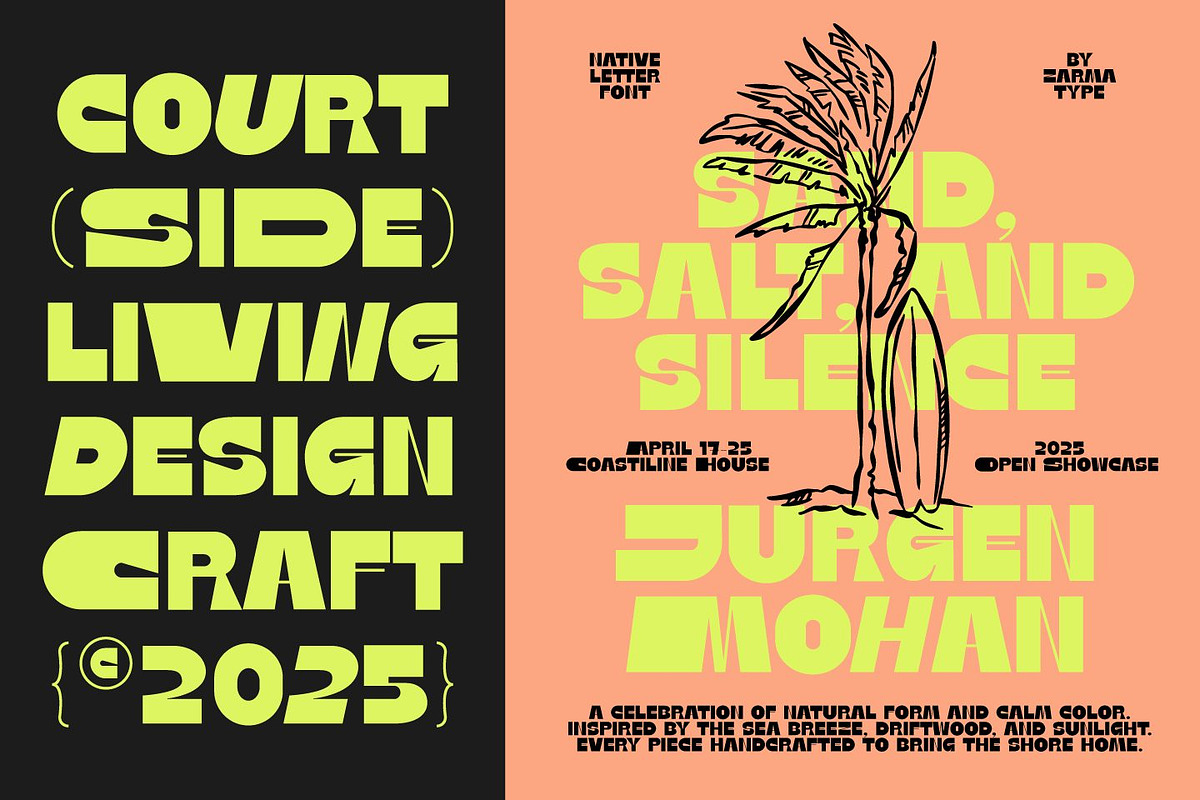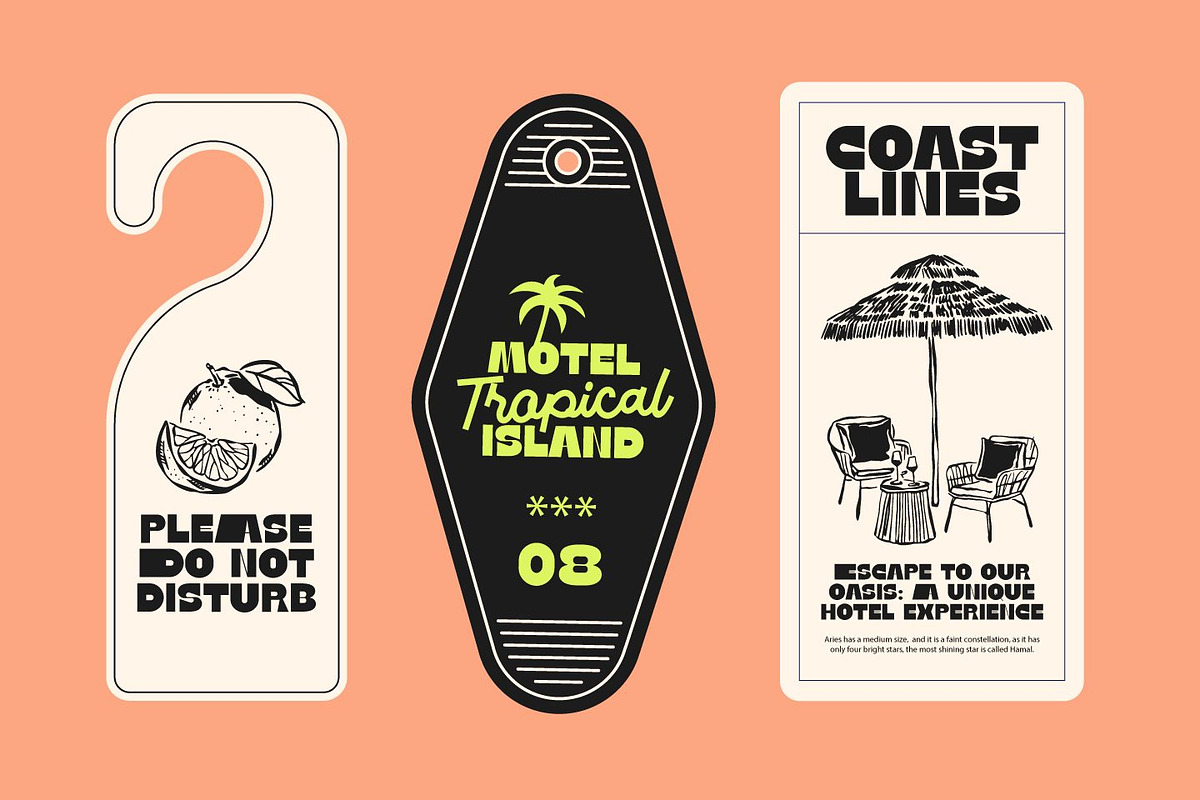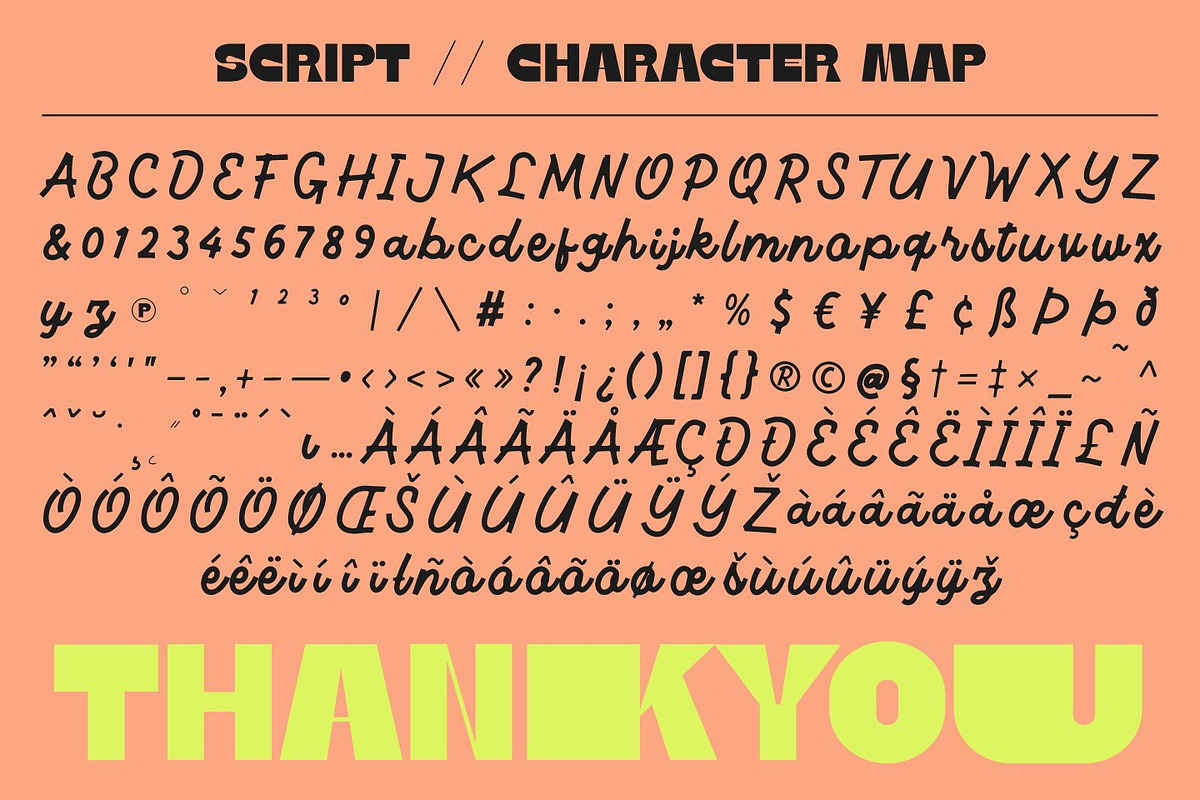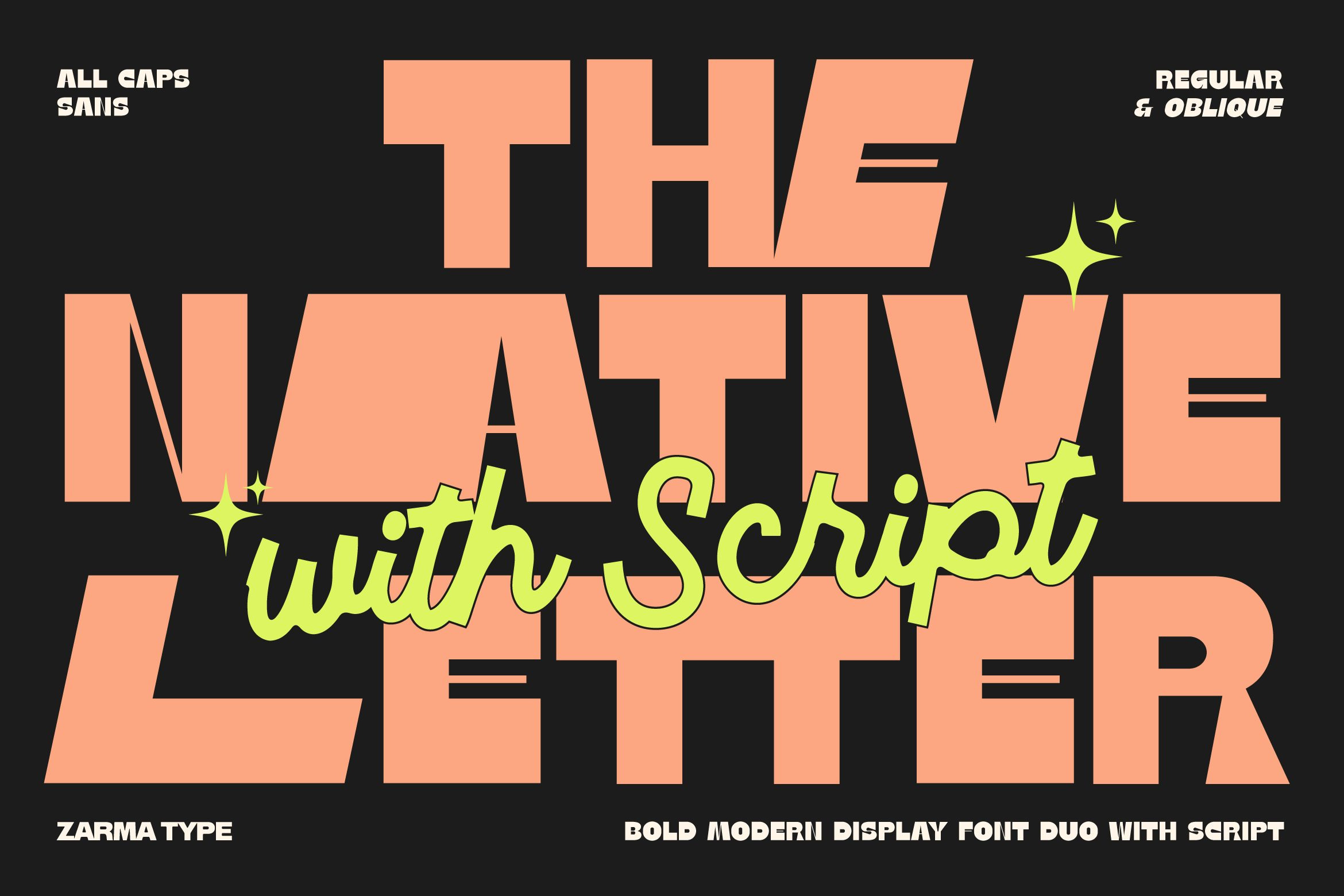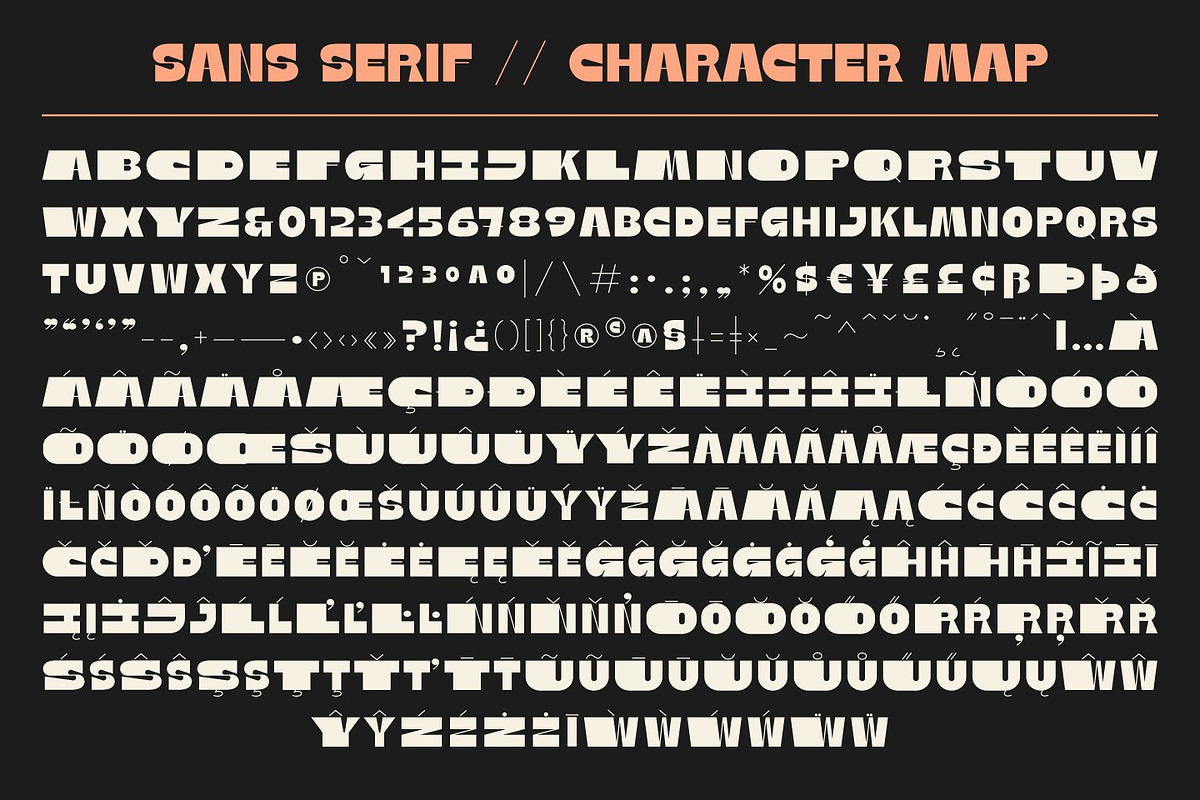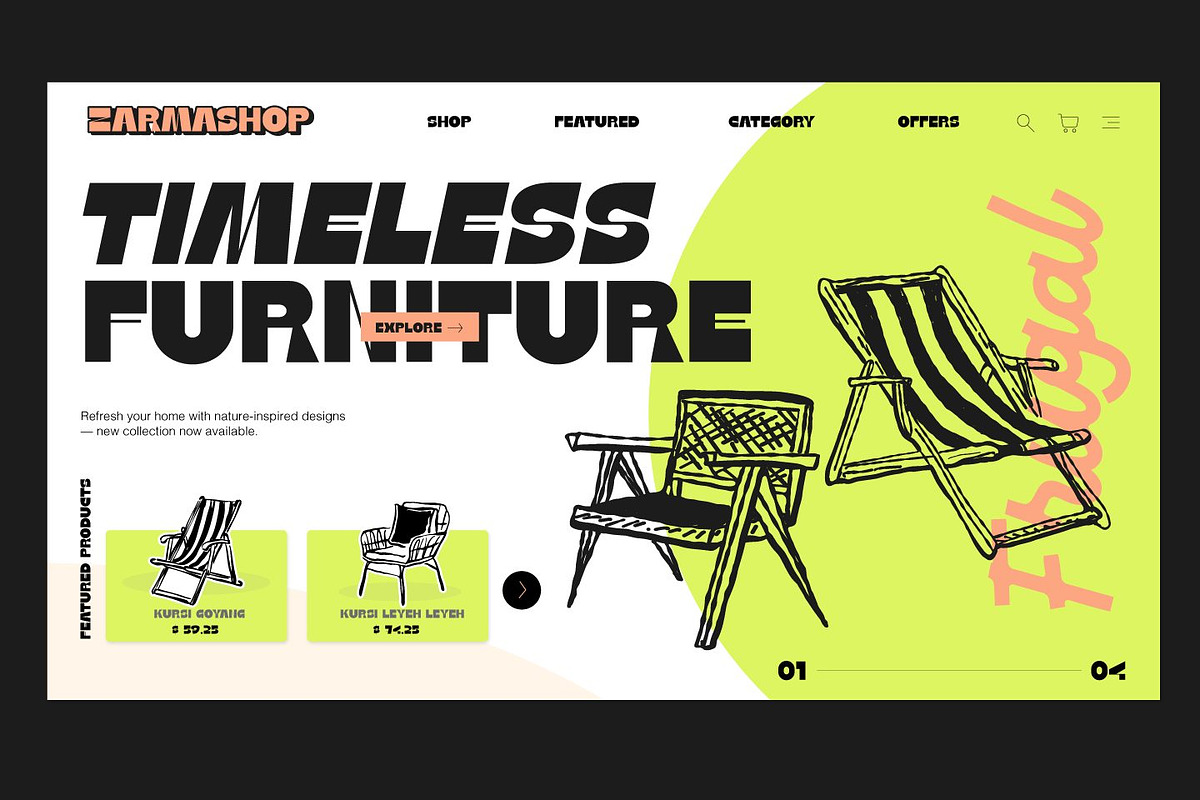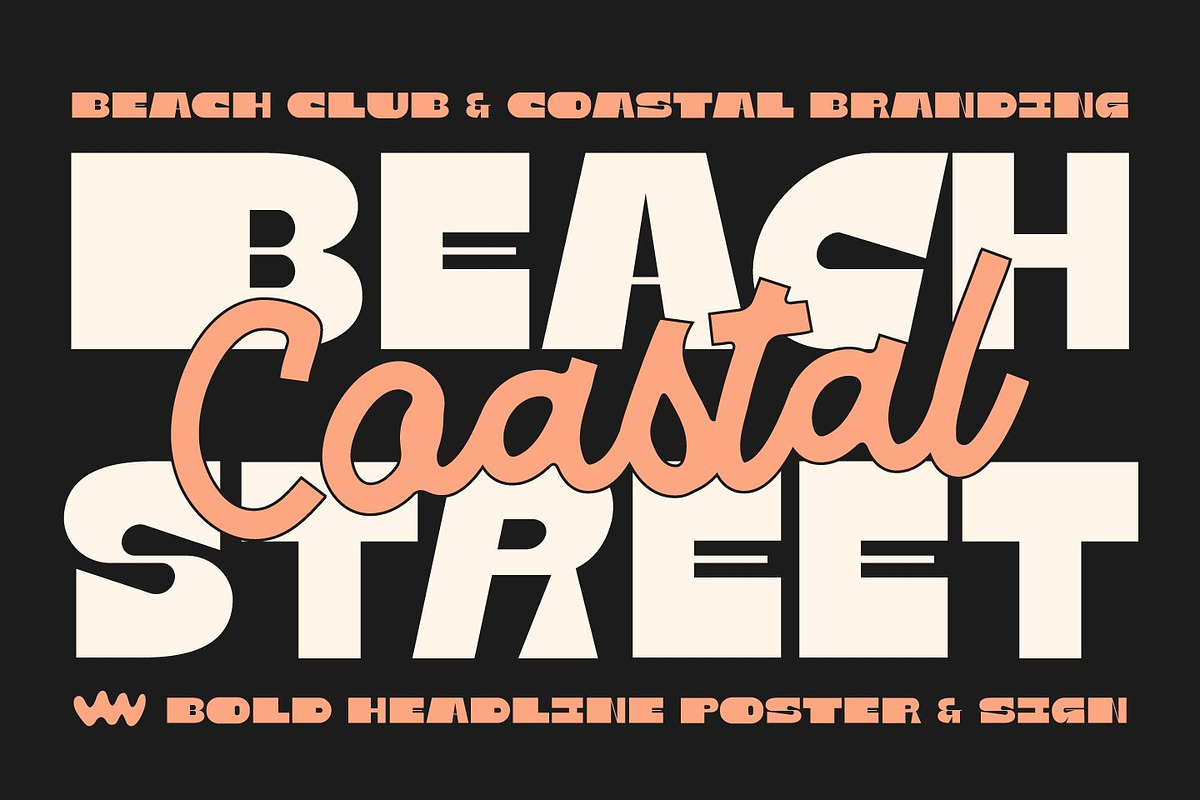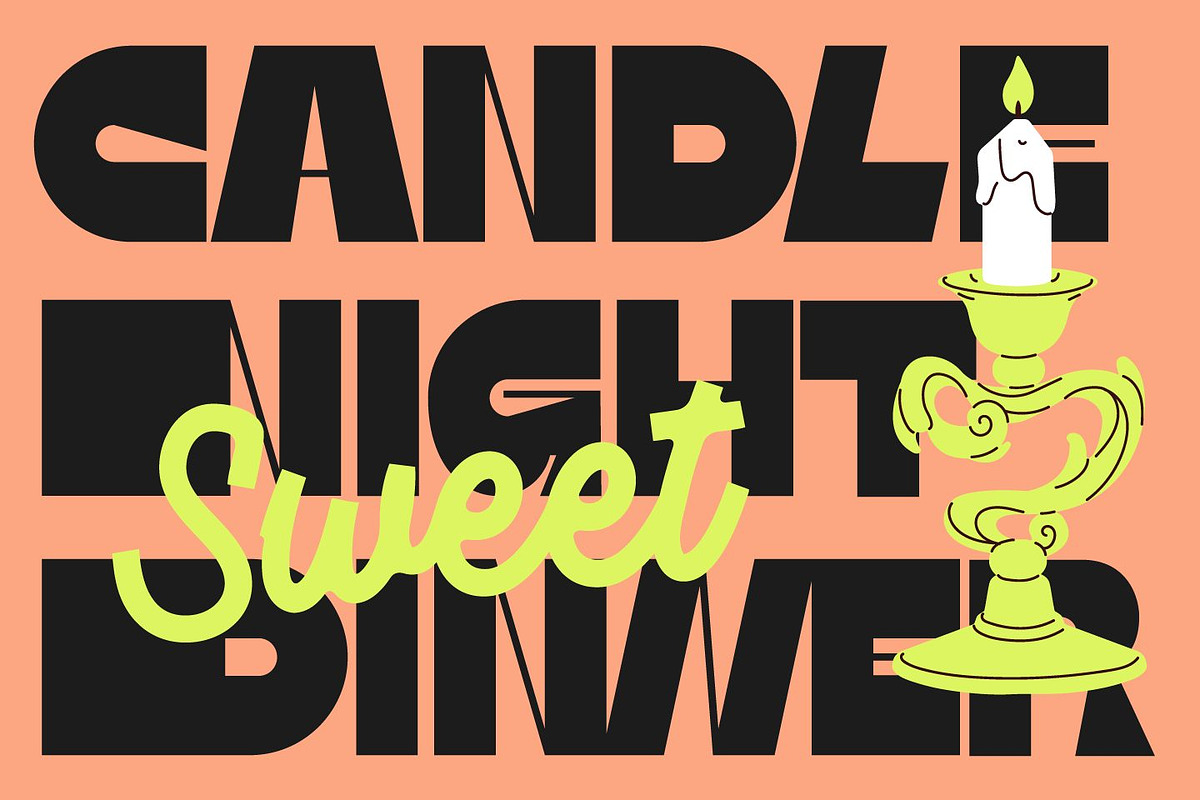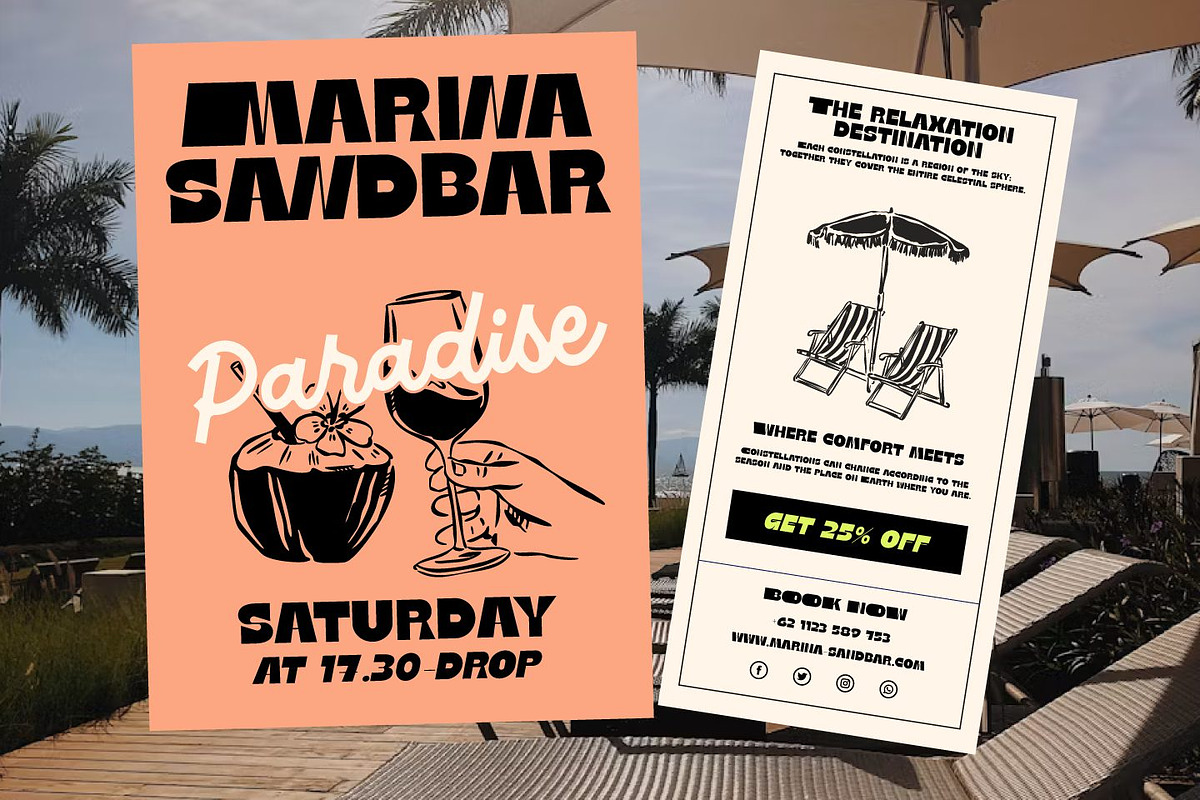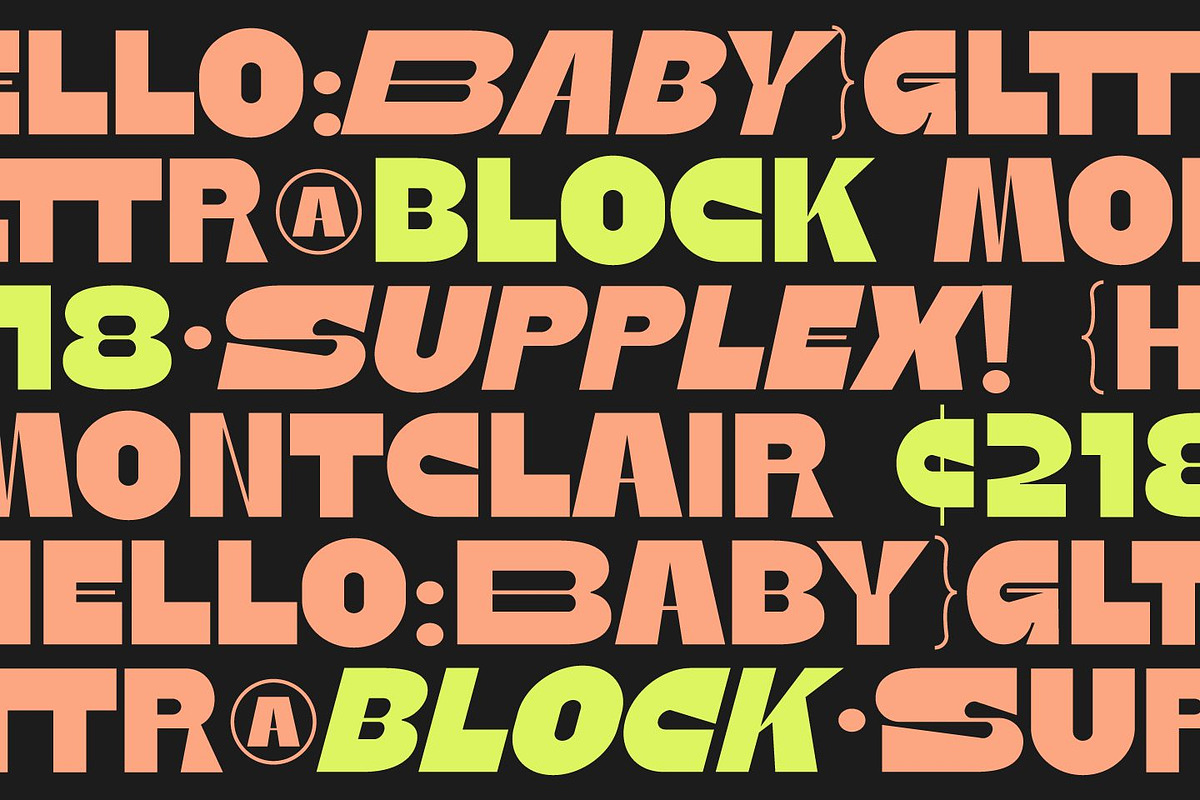
Native Letter - Modern Bold Font
Native Letter is a bold modern display font duo inspired by sunny coastal signage, playful 3D letterforms, and retro vacation posters. The main sans style is chunky, confident, and tightly spaced, perfect for loud headlines and impactful logo marks, while the companion script adds a friendly handwritten touch for taglines, signatures, or small accent words. Together they create fresh, eye-catching typography that feels both modern and nostalgic at the same time.
From beach club branding and summer sale campaigns to furniture ads and lifestyle posters, Native Letter gives you a complete toolkit to build expressive layouts in just a few clicks. Use the bold sans for strong titles, pair it with the smooth script for contrast, and combine the oblique styles, alternates, and multilingual characters to create unique compositions that look like custom lettering. This font duo is ideal for designers who want to bring a warm coastal vibe and bold modern energy into their projects.
- Beach club, resort, and coastal café branding
- Summer sale campaigns, event posters, and promo flyers
- Furniture & lifestyle advertising layouts
- Logo design, badge design, and packaging
- Social media templates, Instagram posts, and Pinterest graphics
- Bold typographic quotes and editorial spreads
- 2 Styles (Regular & Oblique)
- All Caps for the Sans Serif
- Uppercase & Lowercase for the Script
- Numbers, punctuation & symbols
- Stylistic Set and Ligatures
Bring a fresh coastal attitude into your work with Native Letter – Bold Modern Display Font Duo with Script. Drop it into your posters, logos, and social media designs, mix the sans and script styles, and let the chunky shapes and playful curves instantly make your typography stand out.